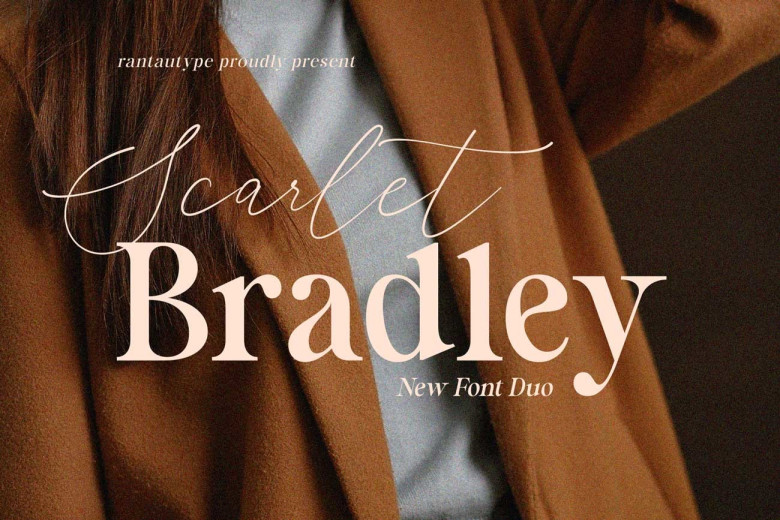
Scarlet Bradley font duo was recently unveiled. Scarlet Bradley is an exquisite combination of serif and script fonts with an additional character type serif font and its italic counterpart. Additionally, Scarlet Bradley contains beautiful lowercase script fonts which add depth and sophistication.
Scarlet Bradley Font Duo